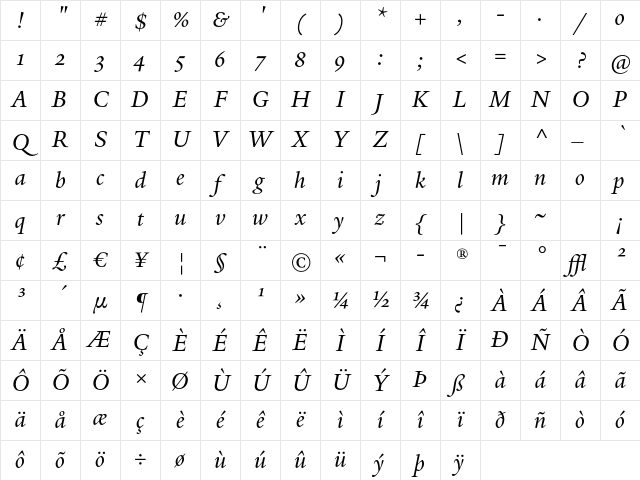
Complete Male Design Italic glyph index. Displaying only characters natively supported by Male Design Italic font.
Male is a composed and adaptable typeface that performs quietly and consistently across a wide range of design contexts. The slanted form adds forward momentum and visual energy.
Pro Tip: Use Male for emphasis, pull quotes, and subheadings where its slanted energy can add rhythm to the layout.